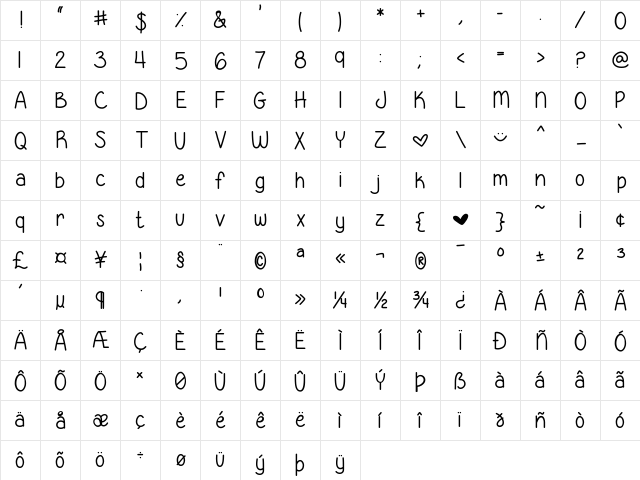
GeorgiaBelle Medium Free Font
GeorgiaBelle Medium
GeorgiaBelle Family
Design Context for GeorgiaBelle
GeorgiaBelle is a composed and adaptable typeface that performs quietly and consistently across a wide range of design contexts.